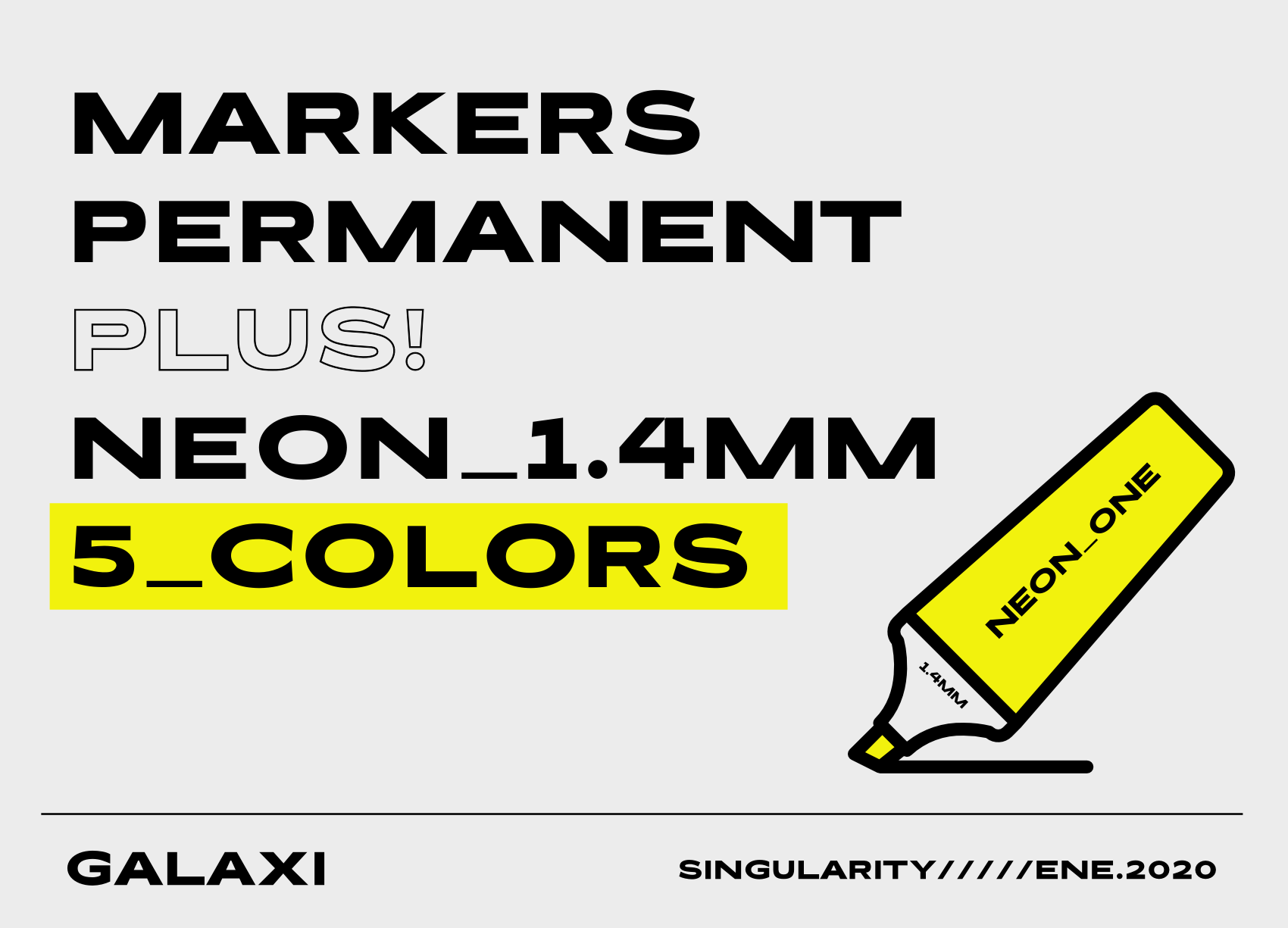
Galaxi Typeface
Galaxi is a typeface science fiction sans. The font was developed in two bold and outline versions. Two experimental styles are delivered as the first version in OpenType. Designed to challenge what is established in types, with unique characteristics within its sans style.